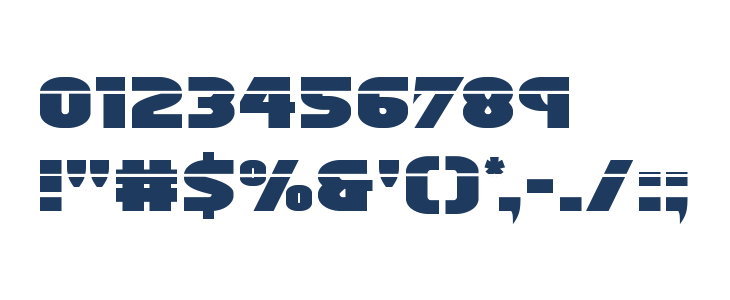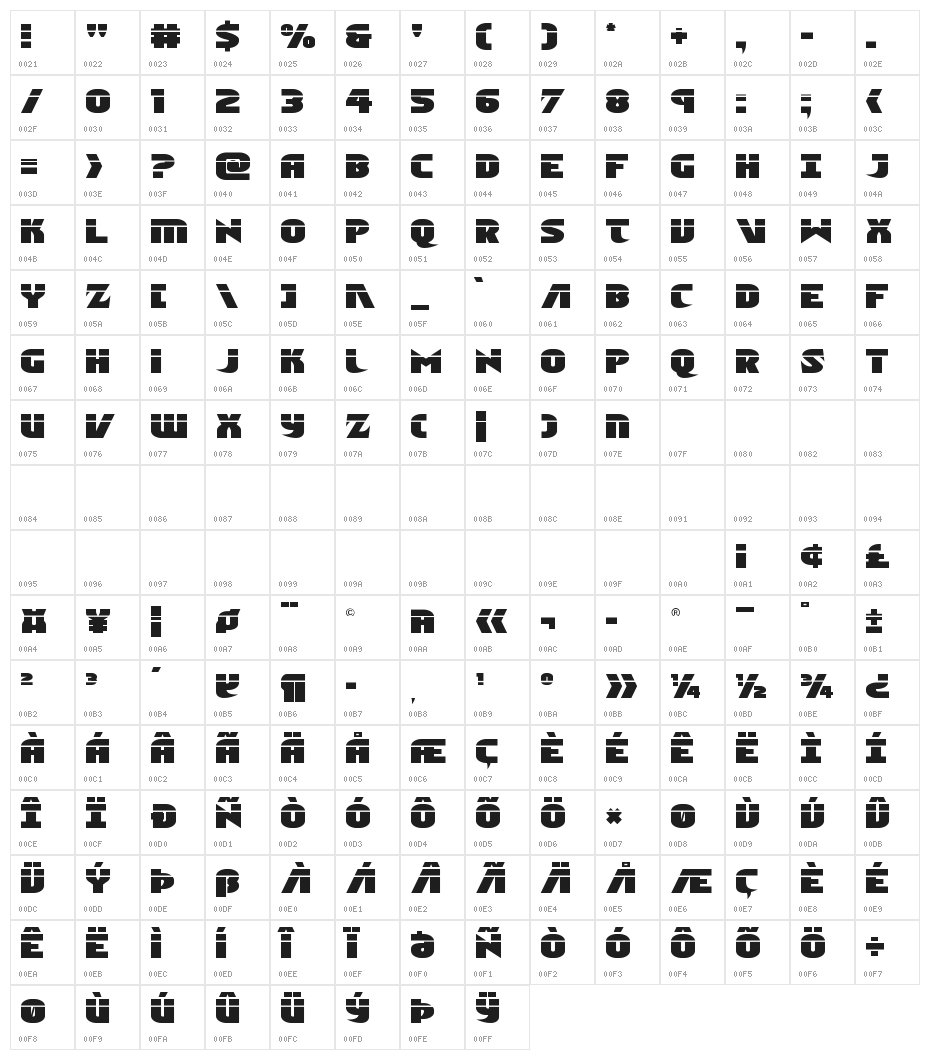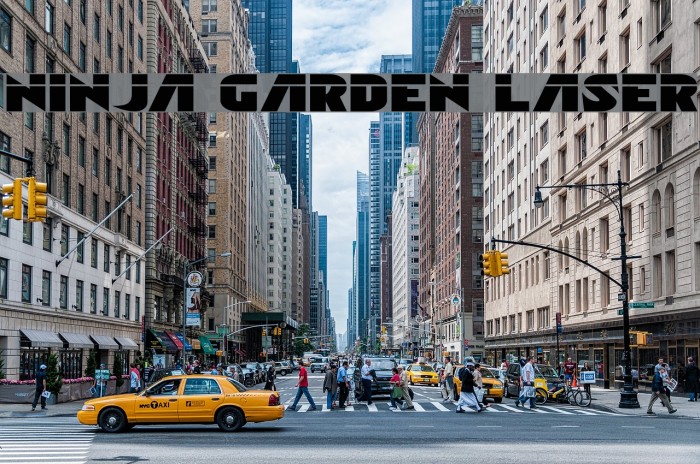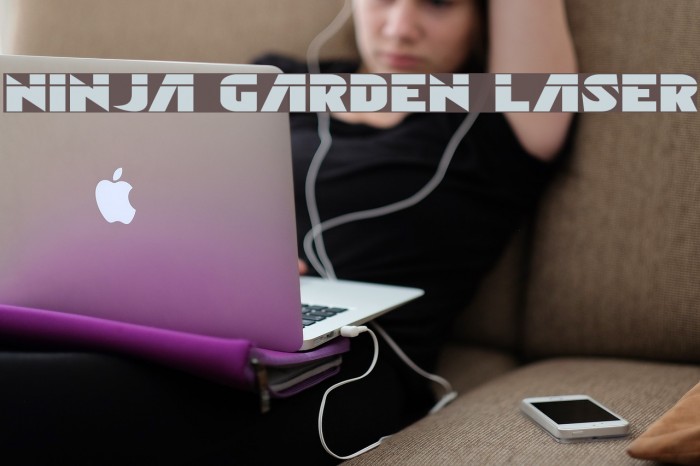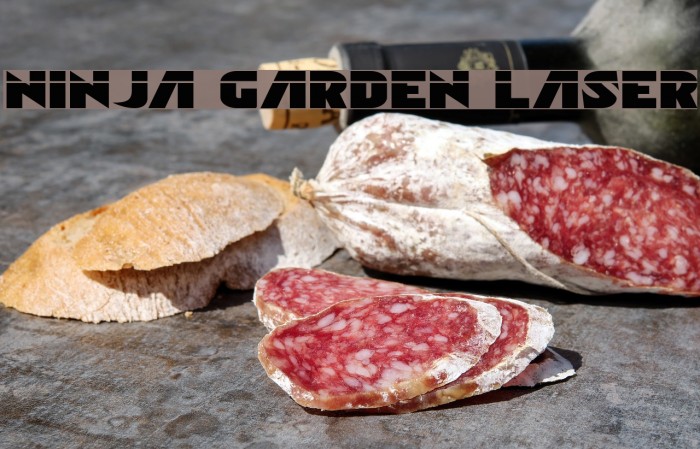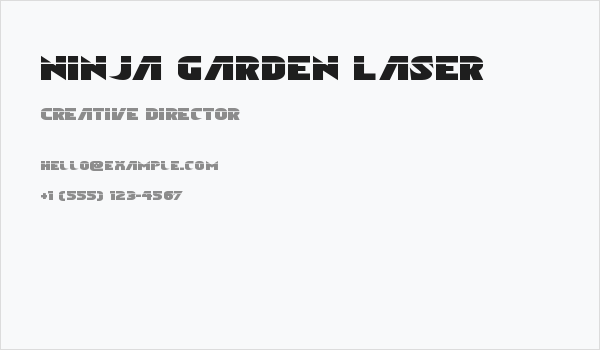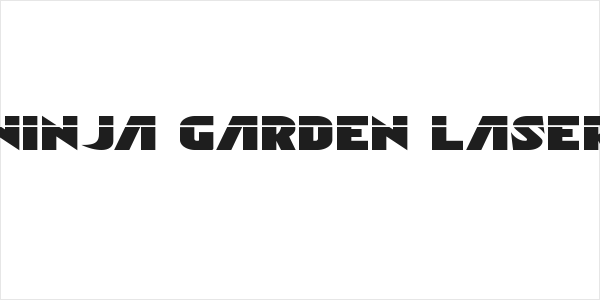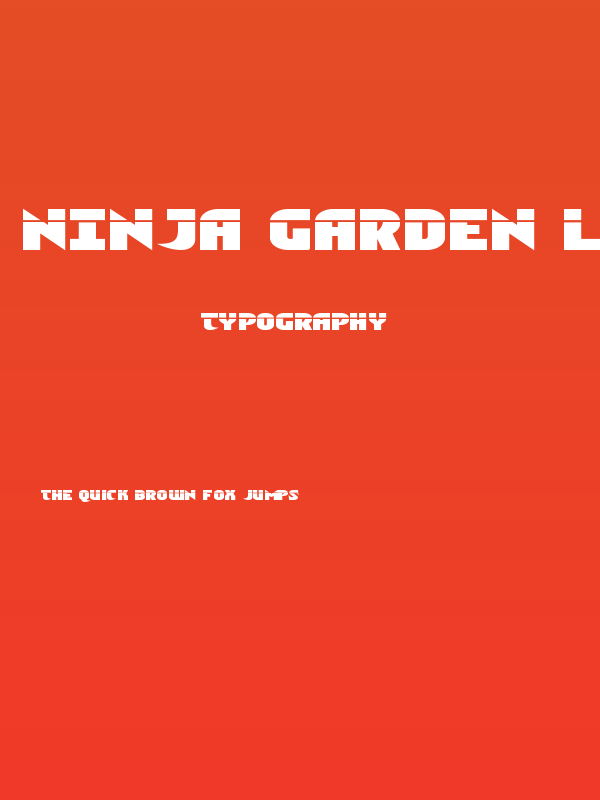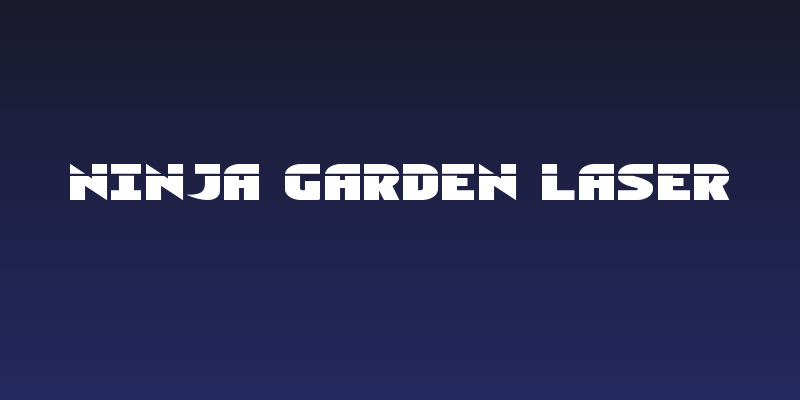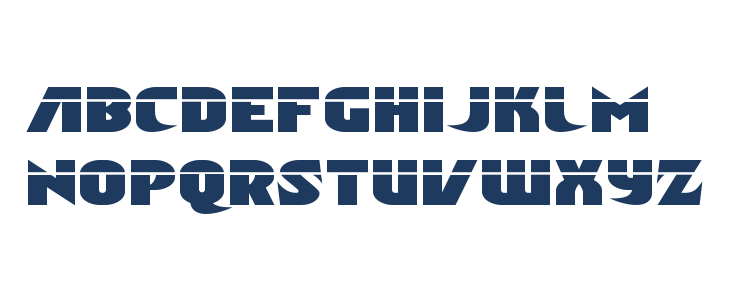
Ninja Garden Laser Font
Ninja Garden Laser Description
This font features a bold and futuristic design with sharp, angular edges and a strong geometric structure. The uppercase letters are particularly striking, with a blocky appearance that conveys a sense of strength and modernity. The lowercase letters maintain this boldness, ensuring consistency throughout the typeface. The numerals are equally robust, making them highly legible and impactful. Special characters are designed with the same angular precision, adding to the overall cohesive look. This font is ideal for projects that require a strong visual presence and a modern aesthetic.